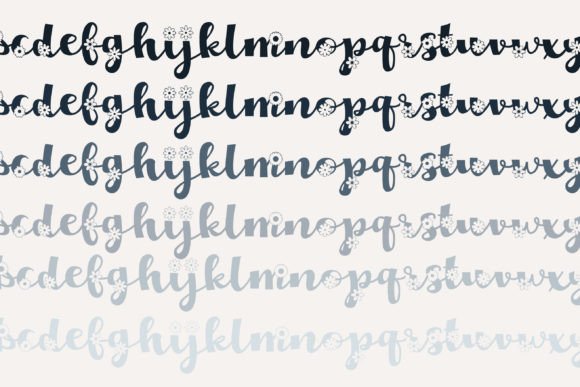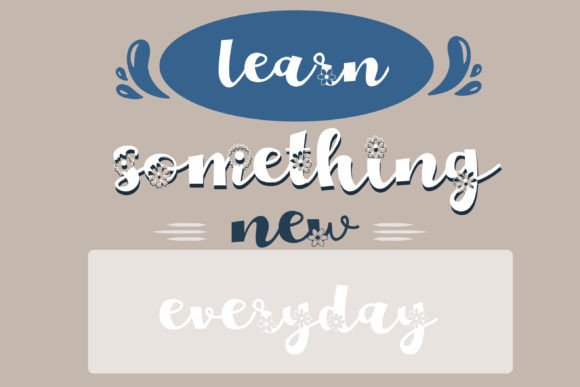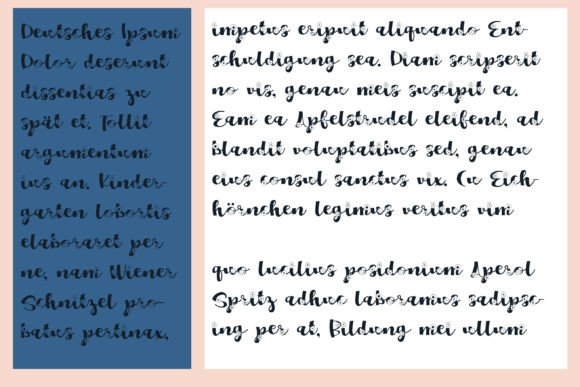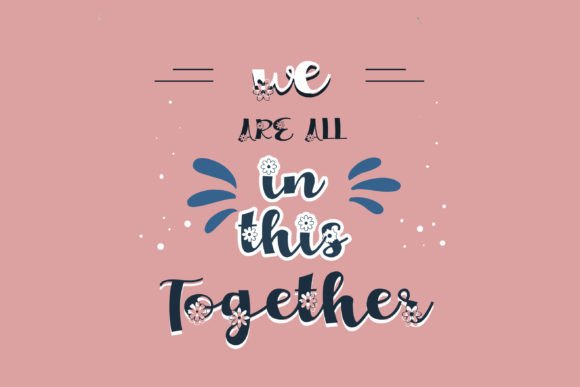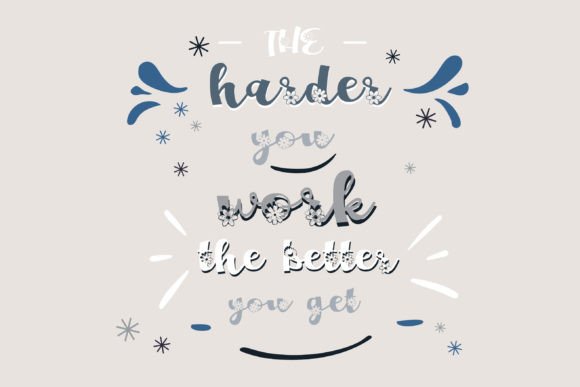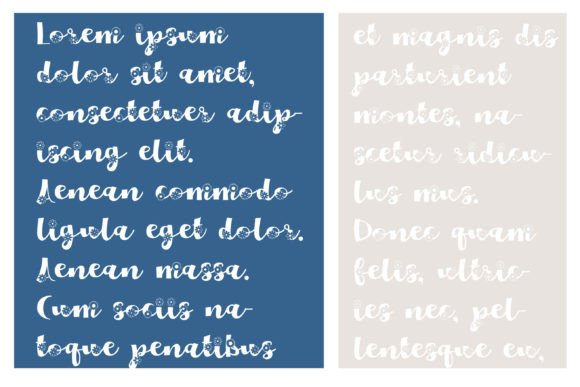
Flower over Font: The Charm of Handwritten Scripts with Florals
In the world of typography, there’s a special place for handwritten scripts that feature cute florals. These fonts are not only visually appealing but also evoke a sense of warmth and personality. A hand-crafted font, also known as a handwritten font, is a typeface that is designed to look like it was written by hand. In this article, we’ll explore the beauty of flower over font, its uses, and why it’s a popular choice among designers and crafters.
What is a Handwritten Font?
A handwritten font is a typeface that mimics the look of handwriting. It’s often characterized by its unique letterforms, varying line widths, and subtle imperfections. Handwritten fonts can range from formal and elegant to informal and playful. They are commonly used for creative projects such as invitations, greeting cards, and other decorative items.
The Beauty of Flower over Font
Flower over font refers to a specific type of handwritten script that features cute florals. These fonts often include illustrations of flowers, leaves, and other natural elements that add a touch of whimsy and charm. The combination of handwritten lettering and floral illustrations creates a unique and eye-catching effect that’s perfect for designers and crafters looking to add a personal touch to their projects.
Uses of Handwritten Fonts with Florals
Handwritten fonts with florals are versatile and can be used for a variety of purposes. Here are some popular uses:
- Invitations and Greeting Cards: Handwritten fonts with florals are perfect for creating custom invitations, greeting cards, and thank-you notes. They add a personal touch and make the recipient feel special.
- Stationery and Journaling: These fonts are great for creating custom stationery, journal pages, and planners. They add a decorative touch and make writing and drawing more fun.
- Signage and Display: Handwritten fonts with florals can be used for signage, display text, and headings. They add a touch of personality and whimsy to any display.
- Digital Design: These fonts can also be used in digital design, such as social media graphics, blog headers, and website titles.
Benefits of Using Handwritten Fonts with Florals
There are several benefits to using handwritten fonts with florals:
- Unique and Eye-Catching: Handwritten fonts with florals are unique and eye-catching. They add a touch of personality to any design and make it stand out.
- Emotional Connection: These fonts evoke an emotional connection with the reader. They create a sense of warmth and friendliness that’s hard to achieve with standard fonts.
- Flexibility: Handwritten fonts with florals are versatile and can be used for a variety of purposes.
Tips for Using Handwritten Fonts with Florals
Here are some tips for using handwritten fonts with florals:
- Choose the Right Font: Choose a font that’s legible and suits the purpose of your design.
- Use it Sparingly: Use handwritten fonts with florals sparingly to avoid overwhelming the reader.
- Pair it with Other Fonts: Pair handwritten fonts with florals with other fonts to create contrast and visual interest.
Flower over font is a beautiful and charming way to add personality to your designs. Handwritten fonts with florals are versatile, unique, and eye-catching. They evoke an emotional connection with the reader and create a sense of warmth and friendliness. Whether you’re a designer or crafter, handwritten fonts with florals are a great way to add a personal touch to your projects.